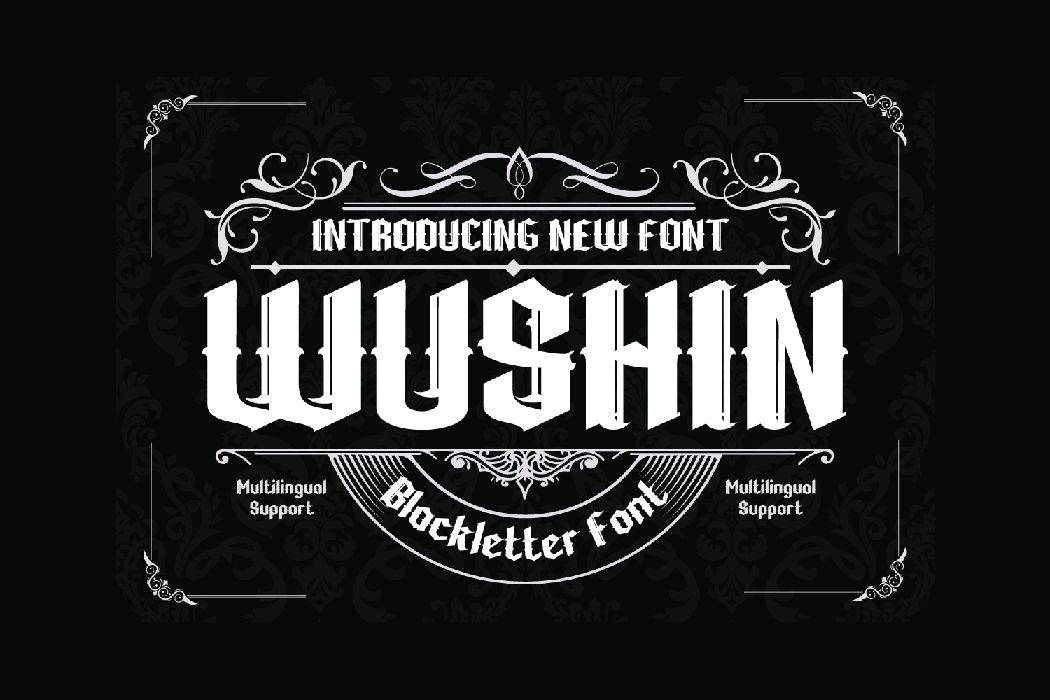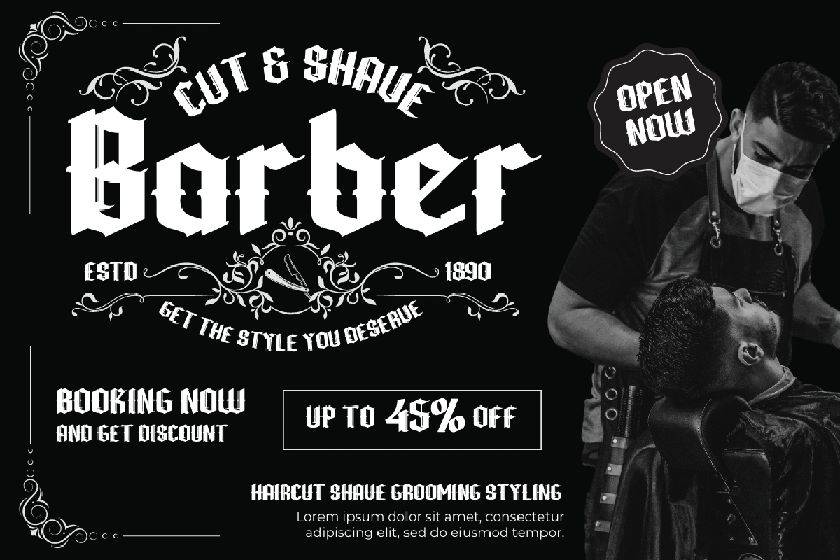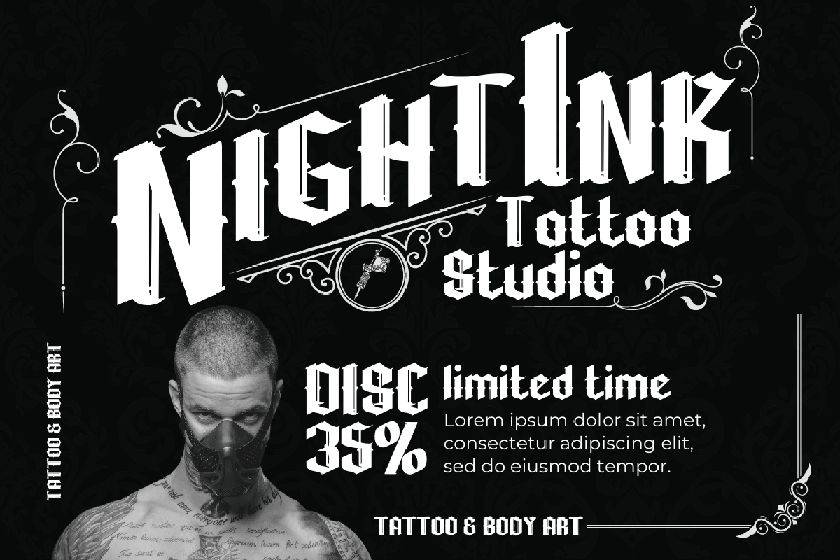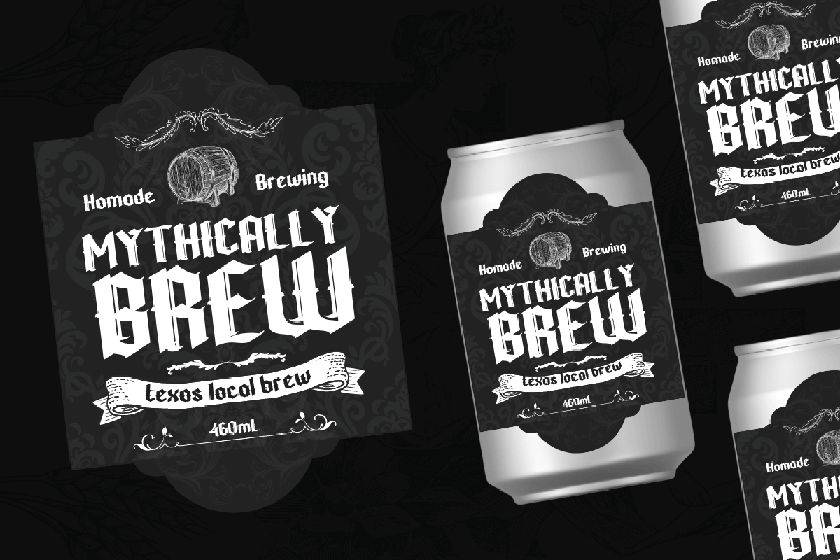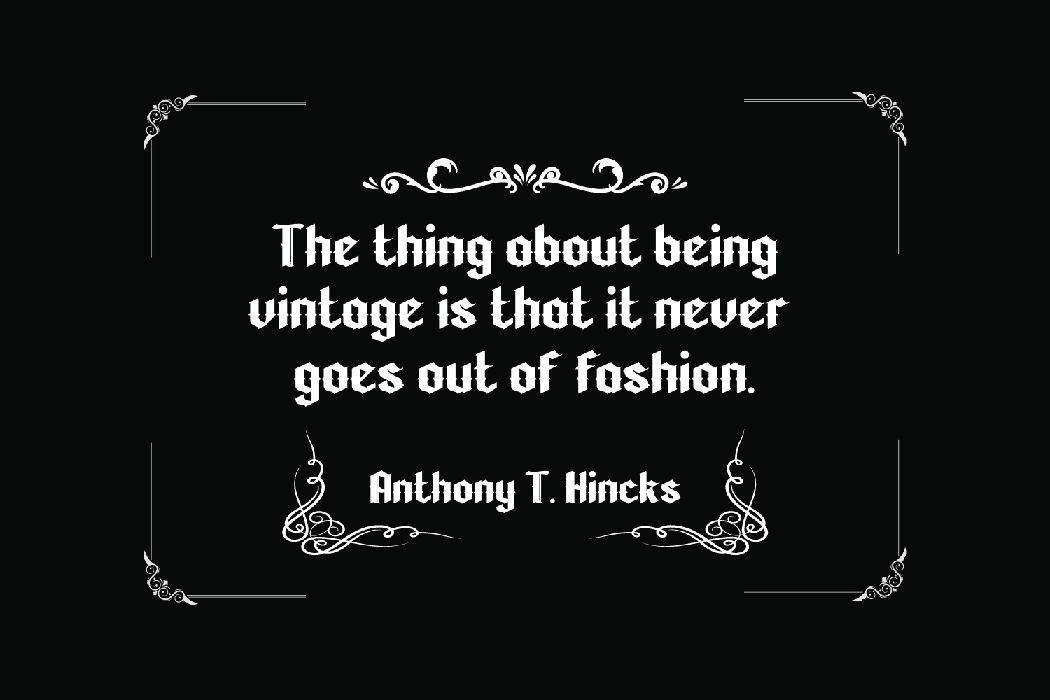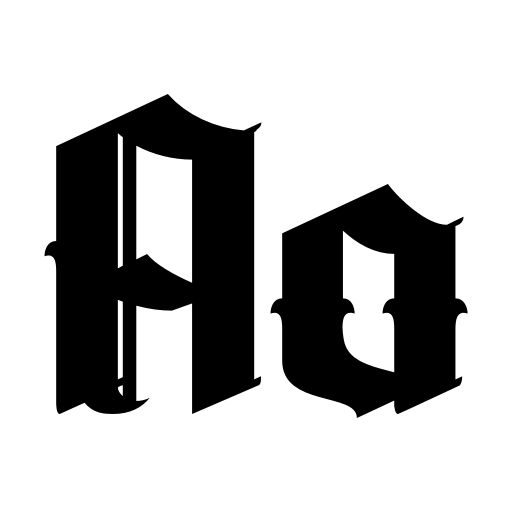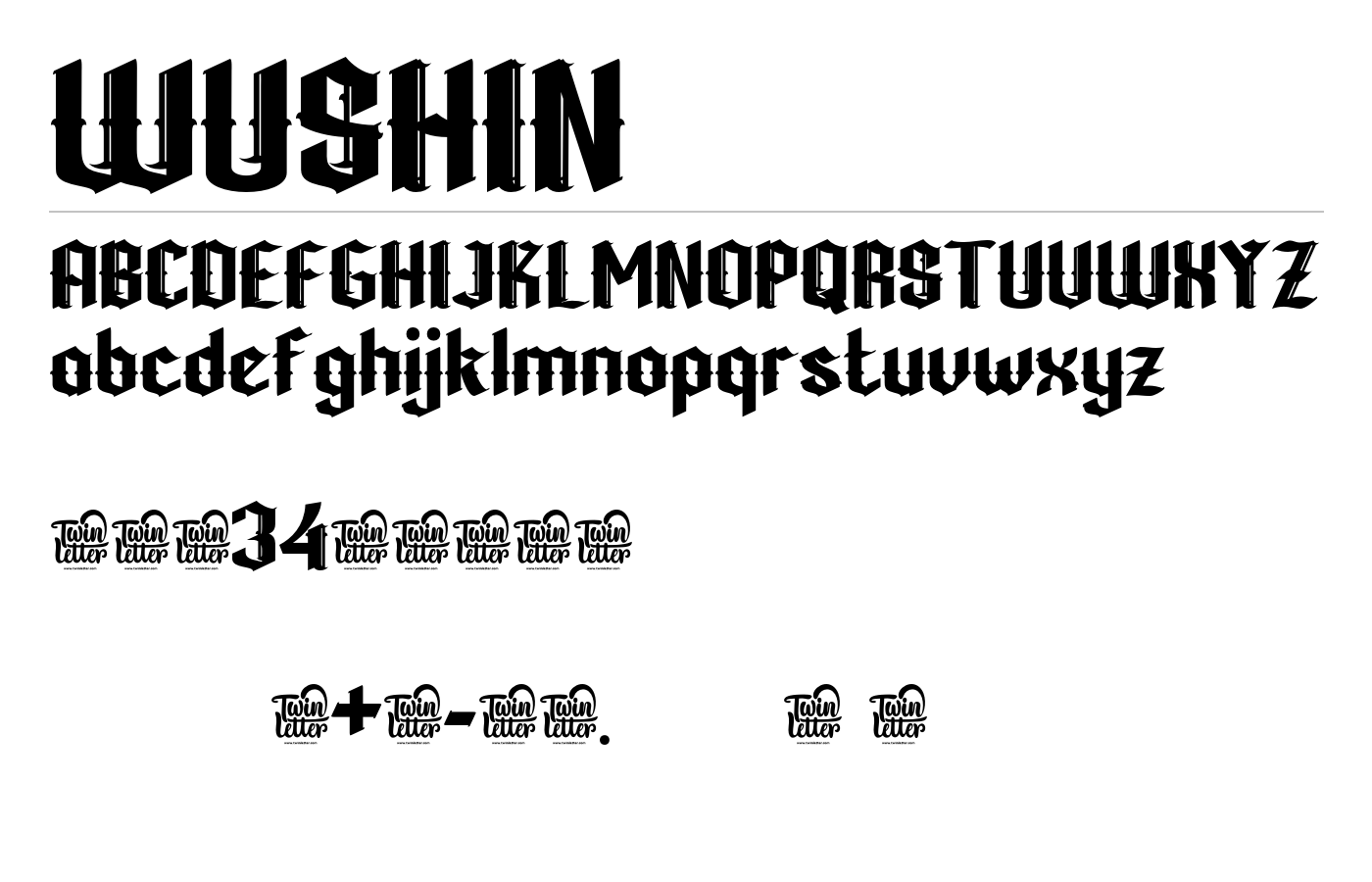
Wushin is a bold blackletter font with strong vertical lines and sharp angles that give it a dramatic, vintage feel. Its condensed width and intricate strokes make it perfect for eye-catching headlines, logos, and designs that want to convey power and tradition with a modern twist. This font works well in branding, posters, and editorial projects where a distinctive, gothic-inspired style is desired.
Wushin Font
About Wushin Font